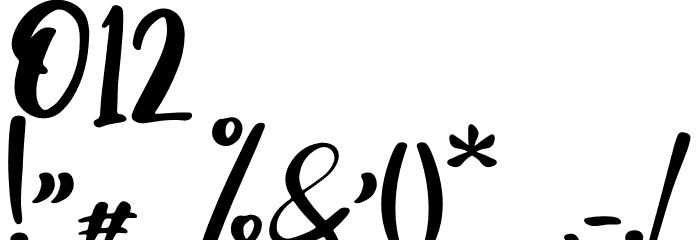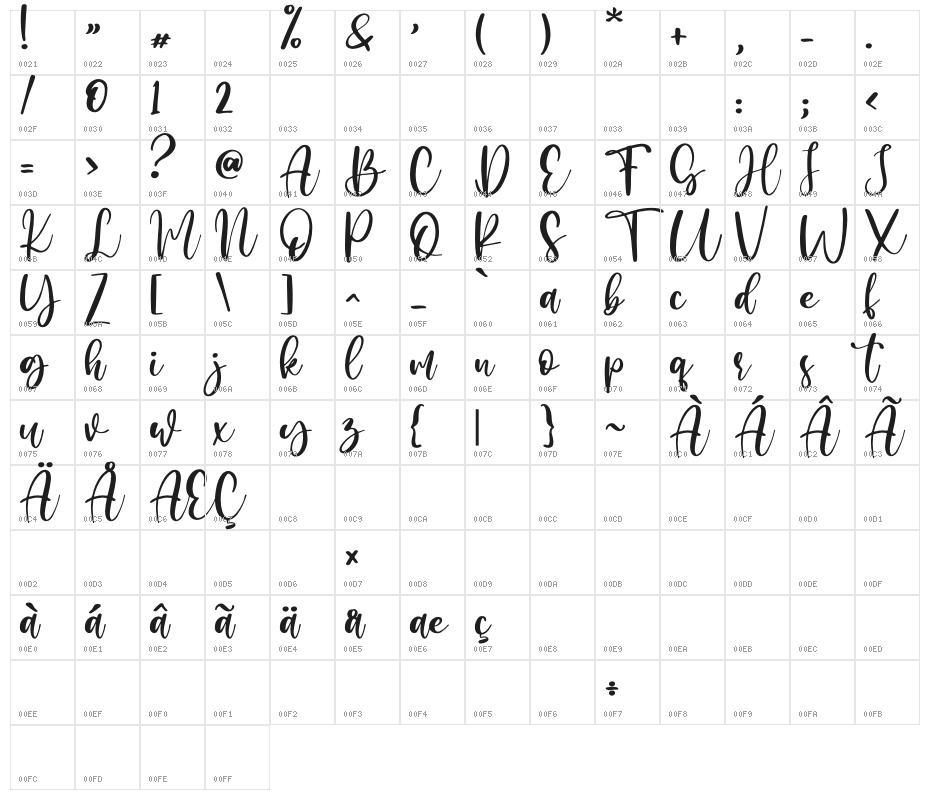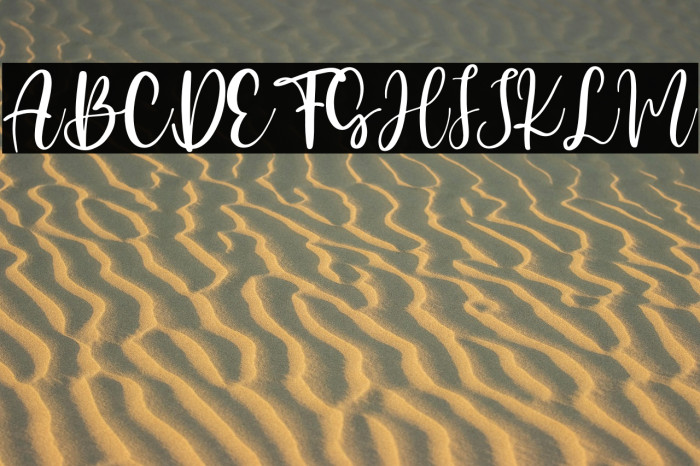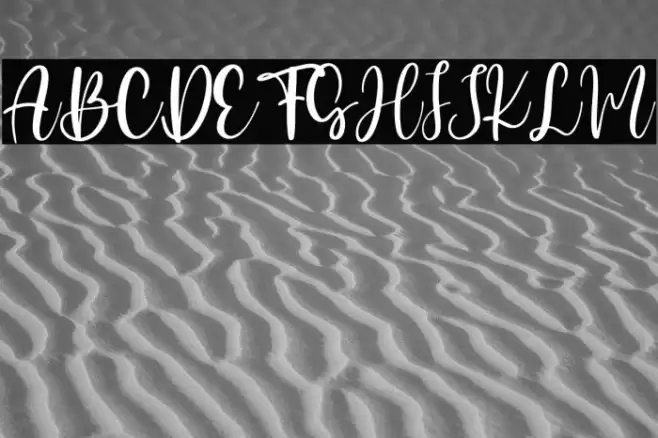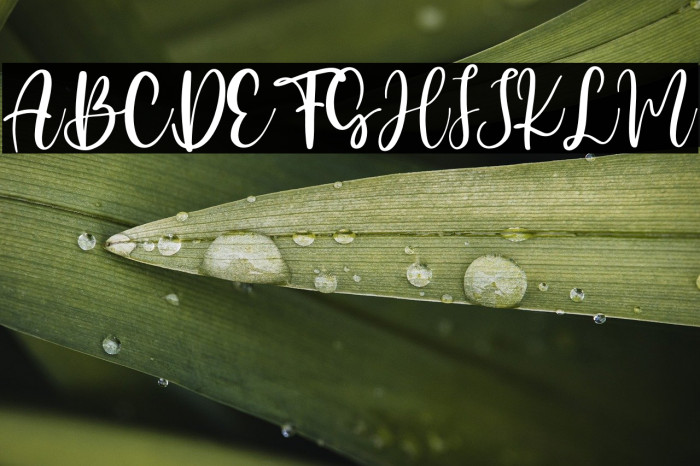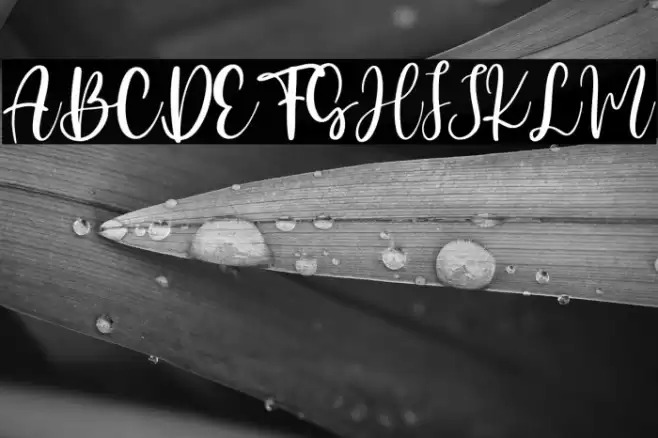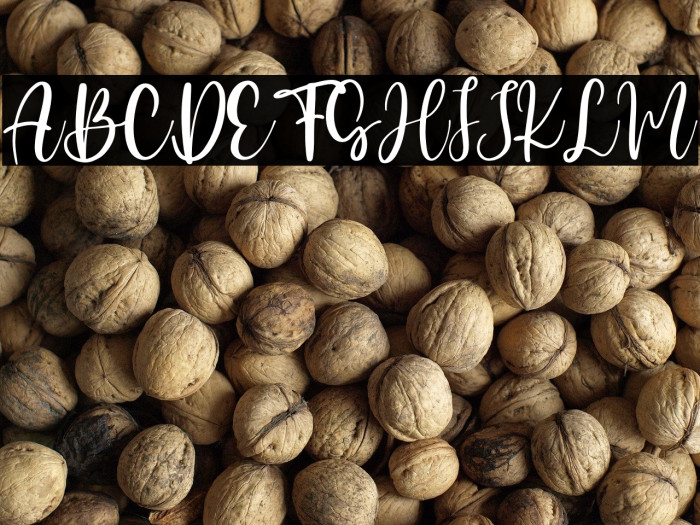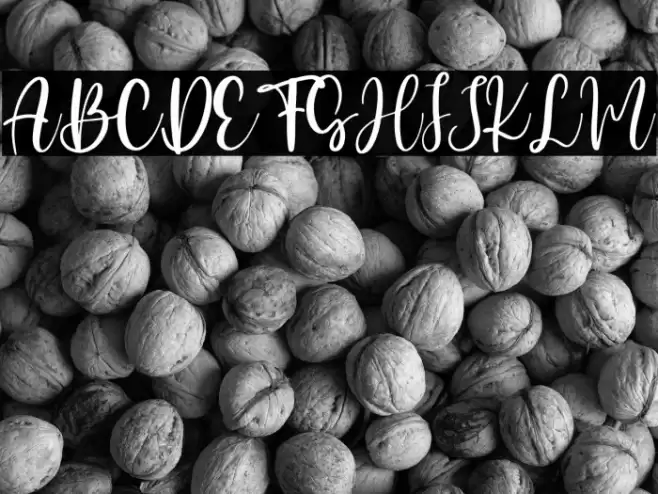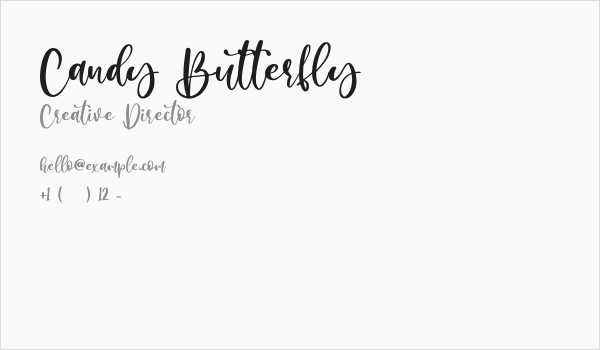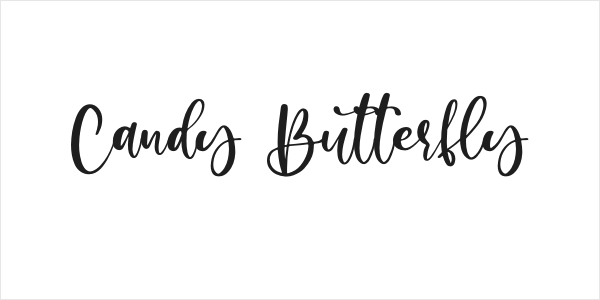
Candy Butterfly Font
Candy Butterfly Description
This font features a playful and whimsical script style, characterized by its flowing, interconnected letters and a hand-drawn appearance. The uppercase letters are bold and expressive, with varying stroke widths that add a dynamic feel. The lowercase letters maintain a consistent style, with loops and curves that enhance its casual and friendly look. The numbers and special characters are designed to match the overall aesthetic, ensuring a cohesive appearance across all text. This font is perfect for projects that require a personal touch, such as invitations, greeting cards, and branding materials.
| Proposed Projects | Ideal for invitations, greeting cards, branding, and any project needing a personal touch. |